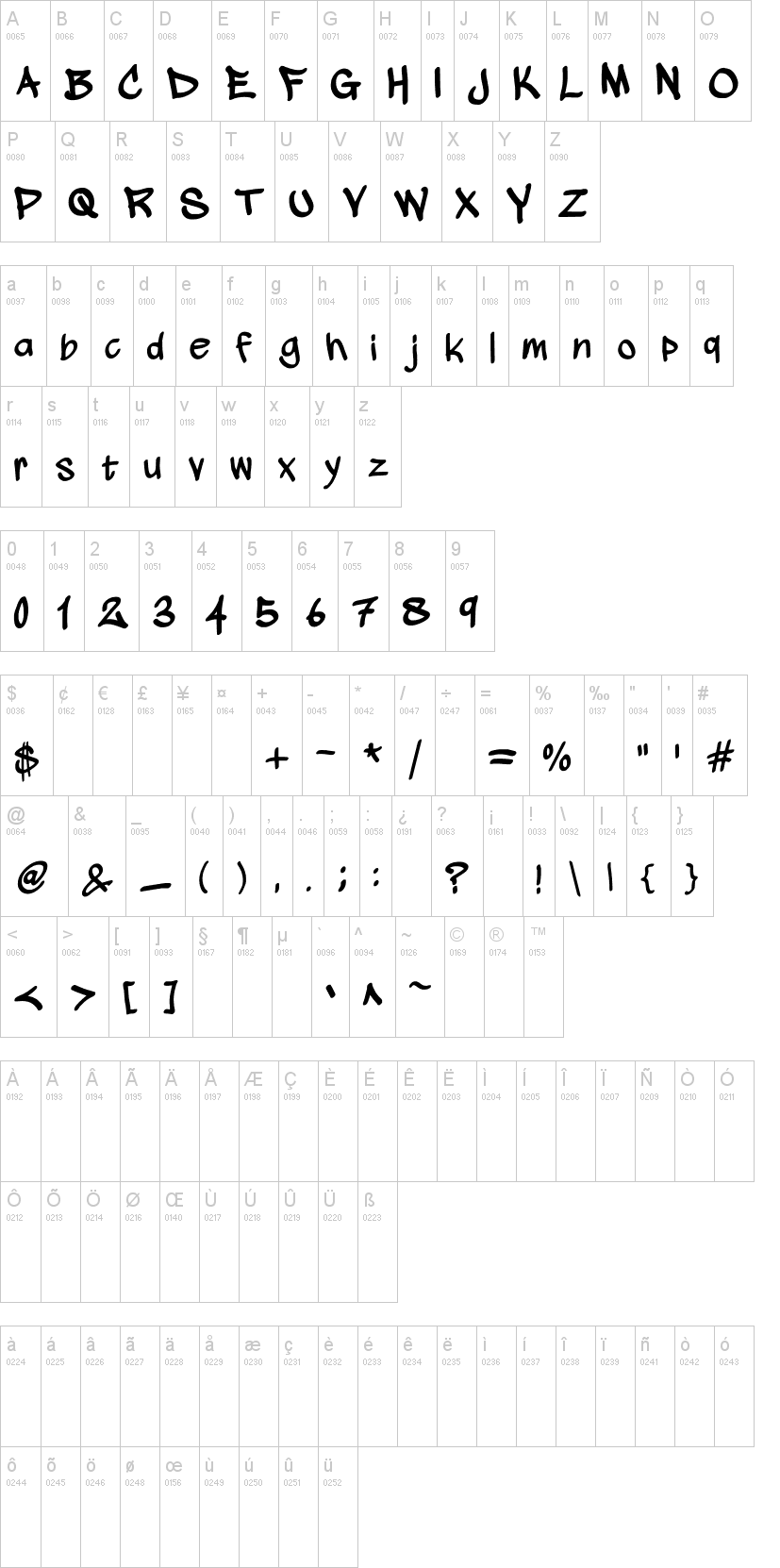
Wickhop Handwriting
Note of the authorThis is the first release Wickhop-Handwriting 1.
Wickhop handwriting1 has most latin characters in it. Small is my handwriting, Caps font looks more like graffiti tagging.
Caps mainly used to indicate first letter of words, whole words in caps don't look so cool.